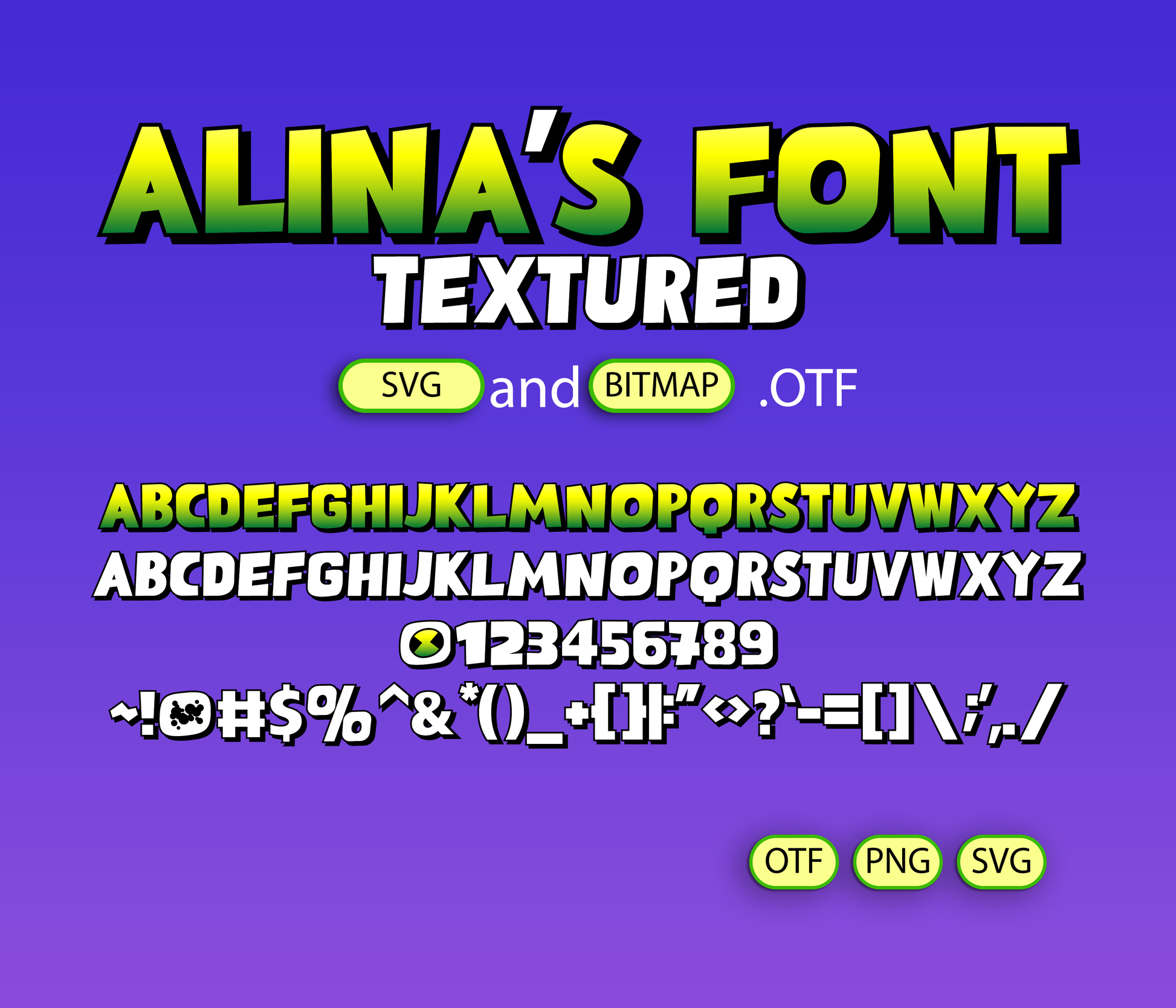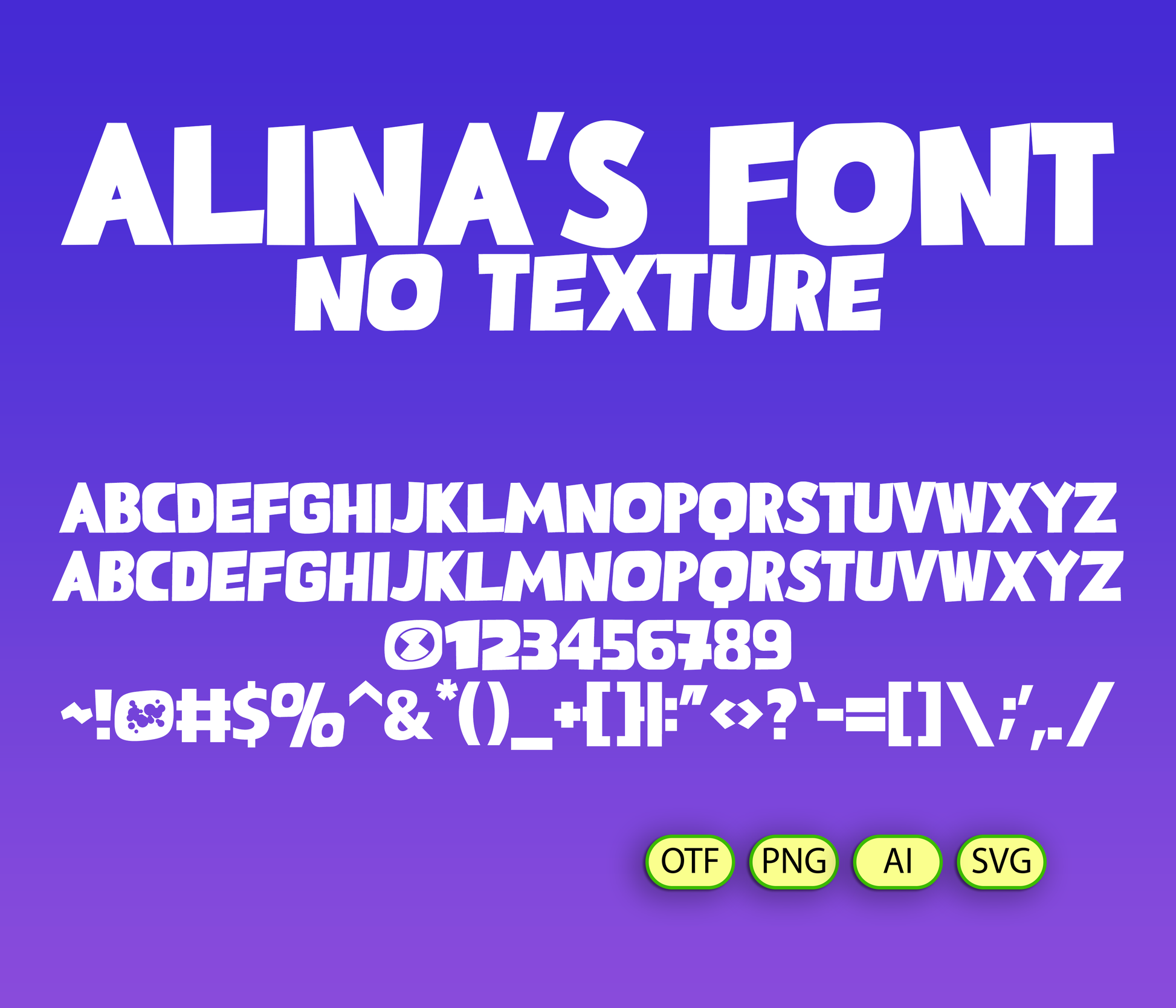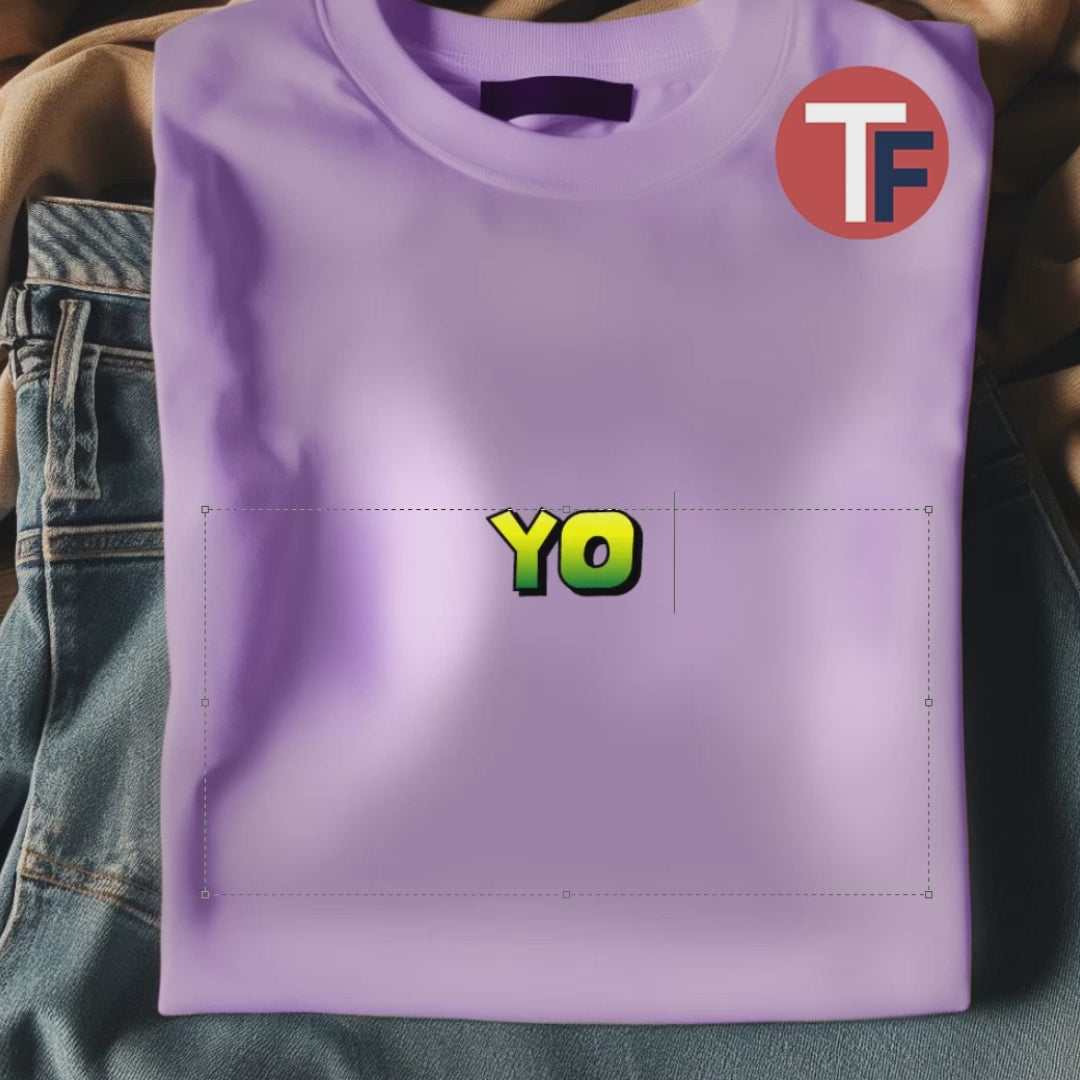
Alien Hero Font Textured
Transform Your Designs with the Alien Hero Font
Unleash the adventurous spirit with our specially designed Alien Hero font, capturing the excitement and dynamic style of a beloved animated series. Perfect for fans, event planners, and designers, this font brings the vibrant and action-packed world of a young hero and his alien transformations to your creative projects. Whether creating event invitations, themed merchandise, or digital content, our Alien Hero font ensures your projects are infused with energy and excitement.
Our Alien Hero font features bold, sharp lines and futuristic elements that reflect the adventurous and heroic themes of the show. This versatile font is ideal for a variety of applications:
To ensure maximum usability and flexibility, our Alien Hero-inspired font includes both textured and non-textured variants. The non-textured version ensures compatibility with all types of software, including Canva. This feature allows users of all skill levels to seamlessly incorporate the font into their designs, enhancing accessibility and ease of use across various digital and print platforms.
Our Alien Hero font not only pays tribute to the iconic series but also empowers you to infuse your designs with its adventurous and heroic spirit. Whether crafting promotional materials, designing unique merchandise, or adding a dynamic touch to personal projects, this font allows you to communicate with the excitement and energy that define an alien hero. Ready to transform your creative projects with the power of the Omnitrix? This font is your key to unlocking a world of dynamic and impactful design.